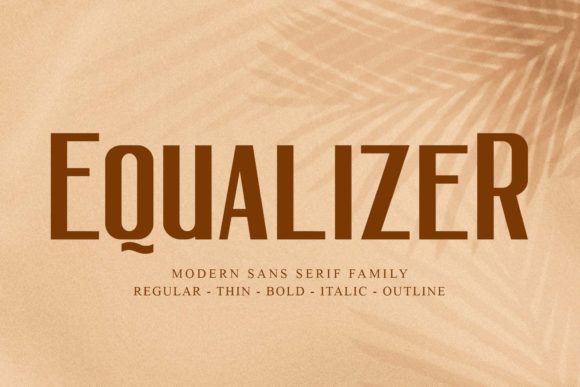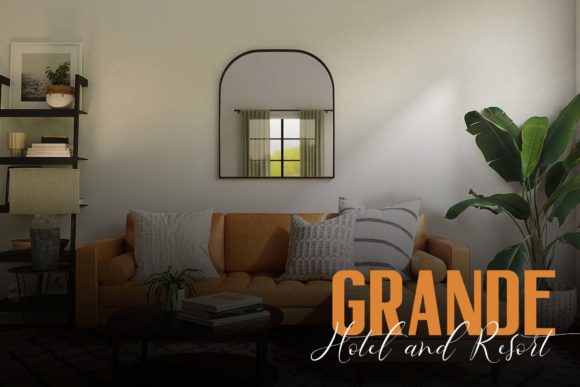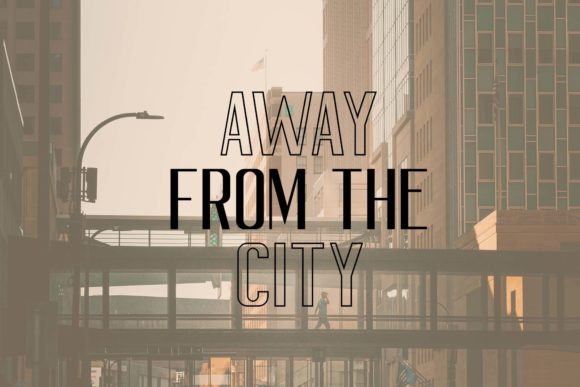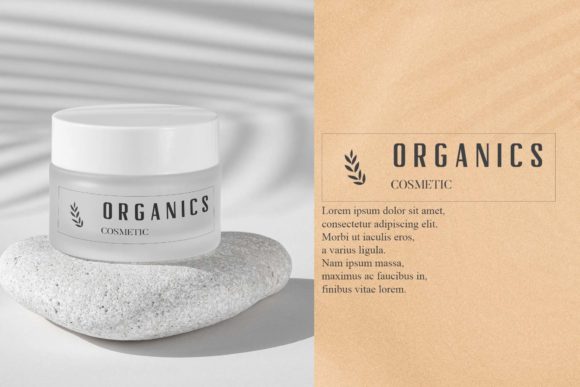
Equalizer Font: A Modern Sans Serif for Branding & Logo Design
About the Equalizer Font
We are excited to introduce Equalizer Font, a must-have typeface for any serious designer. Equalizer is a modern sans serif family. Its variety of weights provide a range of choices that will help you find the best typographic color for your project. Lighter weights are well-suited for body text while heavier ones are ideal for high impact headlines.
Equalizer’s versatility shines in headlines, branding applications, and posters where its strong geometric forms command attention. Its clean lines also work well for short-form text on packaging or signage. However, avoid using lighter weights for extended body copy or UI elements; the letterforms lack the necessary x-height and subtle details for optimal readability in smaller sizes.
The font projects a modern and confident personality. Its bold, almost mechanical aesthetic suits technology brands, corporate identities aiming for a clean and professional image, or projects emphasizing strength and innovation.
Pairing Equalizer with a classic serif like Garamond for a balanced contrast in formality or a playful script like Allura for a touch of elegance would create visually appealing combinations. Alternatively, a geometric sans-serif such as Futura would reinforce its modern feel.
Equalizer Font Usage Examples
Equalizer Font Example